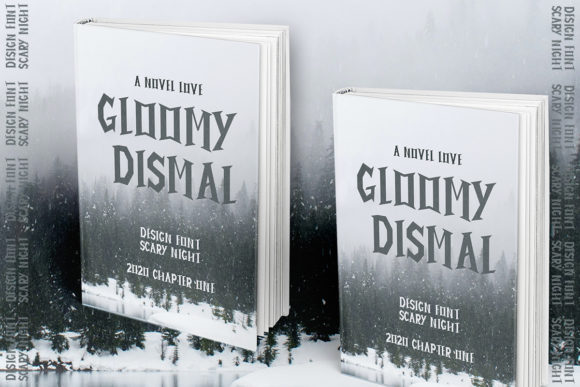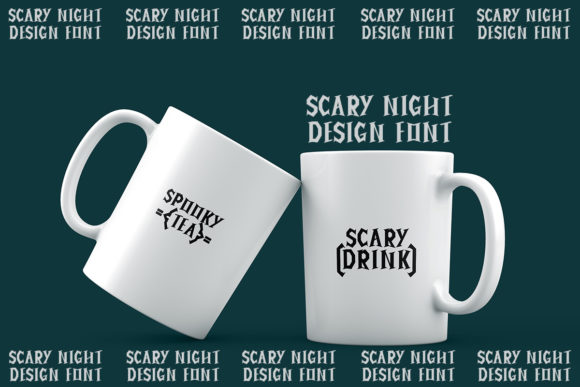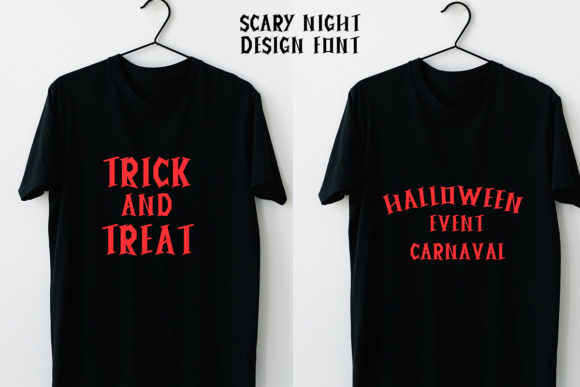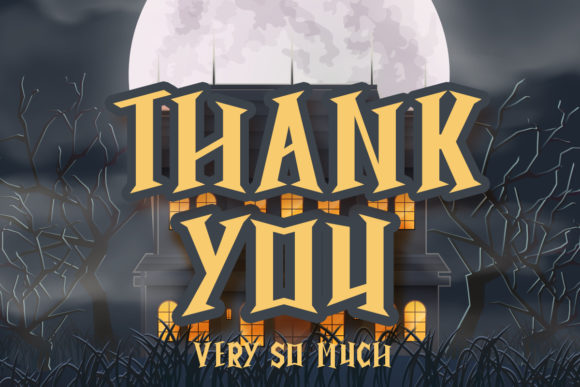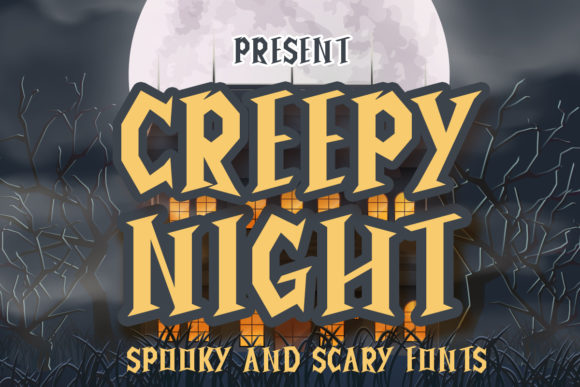
Unleash the Spook: Exploring the Creepy Night Font for Your Halloween Designs
As the witching hour approaches, and October’s chill sets in, designers and crafters everywhere are on the hunt for the perfect font to give their Halloween projects a spooky kick. Look no further than the Creepy Night Font, a scary display font designed to send shivers down the spine. In this article, we’ll dive into what makes Creepy Night a must-have for your Halloween designs and how it can elevate your October-themed creations.
The Essence of Creepy Night Font
Creepy Night is not just any font; it’s an experience. This spooky and scary display font is crafted to capture the essence of Halloween, making it ideal for any design that needs a creepy touch. Whether you’re working on invitations for a Halloween party, crafting spooky posters, or creating eerie Halloween-themed crafts, Creepy Night is designed to become your go-to font.
Why Designers Love Creepy Night
Designers adore fonts that can bring their creative visions to life, and Creepy Night does just that. Here are a few reasons why it stands out:
- Instant Impact: The Creepy Night Font is designed to make a statement. Its bold and eerie style ensures that your designs grab attention immediately.
- Versatility: While it’s perfect for Halloween and October-themed designs, its unique style can also be used for other spooky or nighttime-themed projects throughout the year.
- Easy to Use: Despite its complex appearance, Creepy Night is surprisingly easy to use, making it accessible for designers of all skill levels.
Crafting with Creepy Night
Crafters who love to add a personal touch to their Halloween decorations and gifts will find Creepy Night to be a valuable addition to their font collection. Here are some ideas for using Creepy Night in your crafting projects:
- DIY Halloween Cards: Add a spooky greeting to your handmade Halloween cards with Creepy Night.
- Custom Party Decor: Use Creepy Night to create custom banners, signs, and decorations for your Halloween party.
- Personalized Treat Tags: Add a creepy touch to your Halloween treats with personalized tags featuring Creepy Night.
Tips for Using Creepy Night
To get the most out of Creepy Night, consider these tips:
- Pair with Complementary Fonts: Combine Creepy Night with simpler fonts for a contrasting and visually appealing effect.
- Experiment with Colors: While black is classic for creepy designs, don’t be afraid to experiment with other colors to match your project’s theme.
- Play with Sizes: Use varying sizes of Creepy Night to create a hierarchy of text, adding depth to your designs.
Creepy Night Font is more than just a font; it’s a tool to transform your Halloween and October designs into unforgettable creations. Its spooky charm and versatility make it a must-have for designers and crafters looking to add a creepy touch to their projects. So, why settle for ordinary when you can unleash the spook with Creepy Night? Download it today and let your imagination run wild!